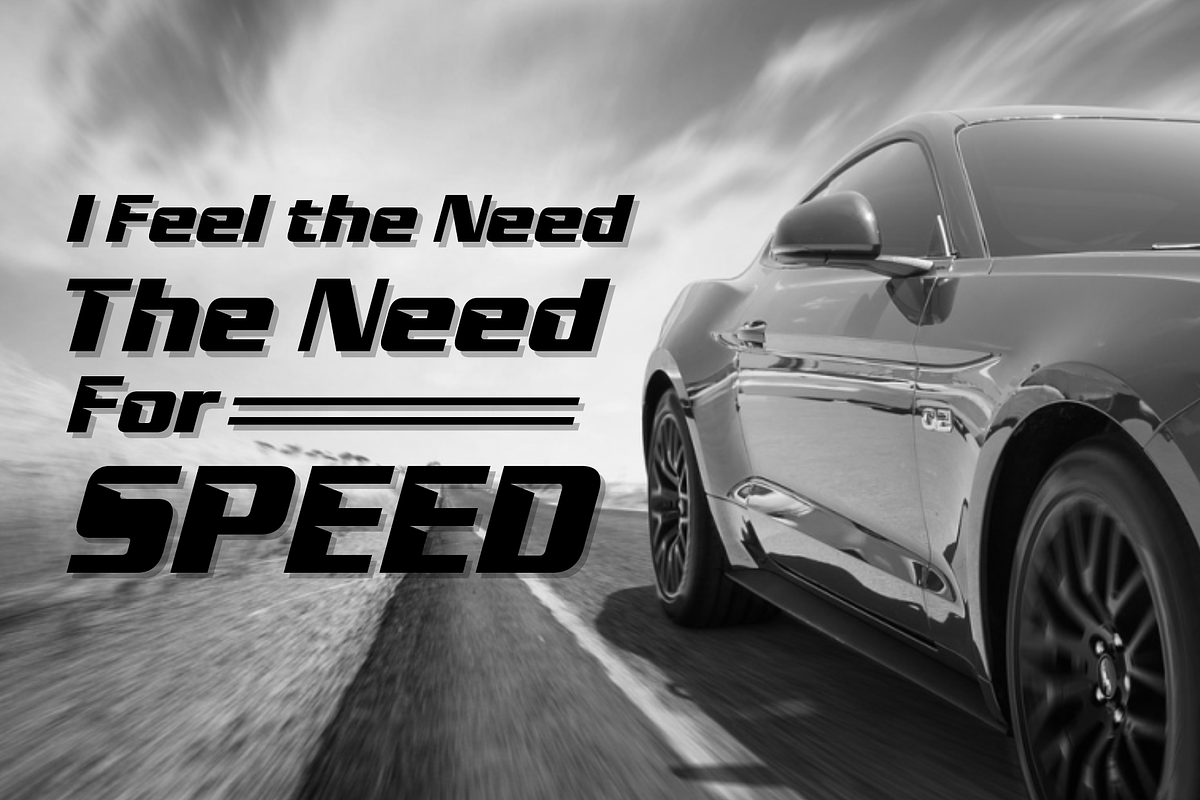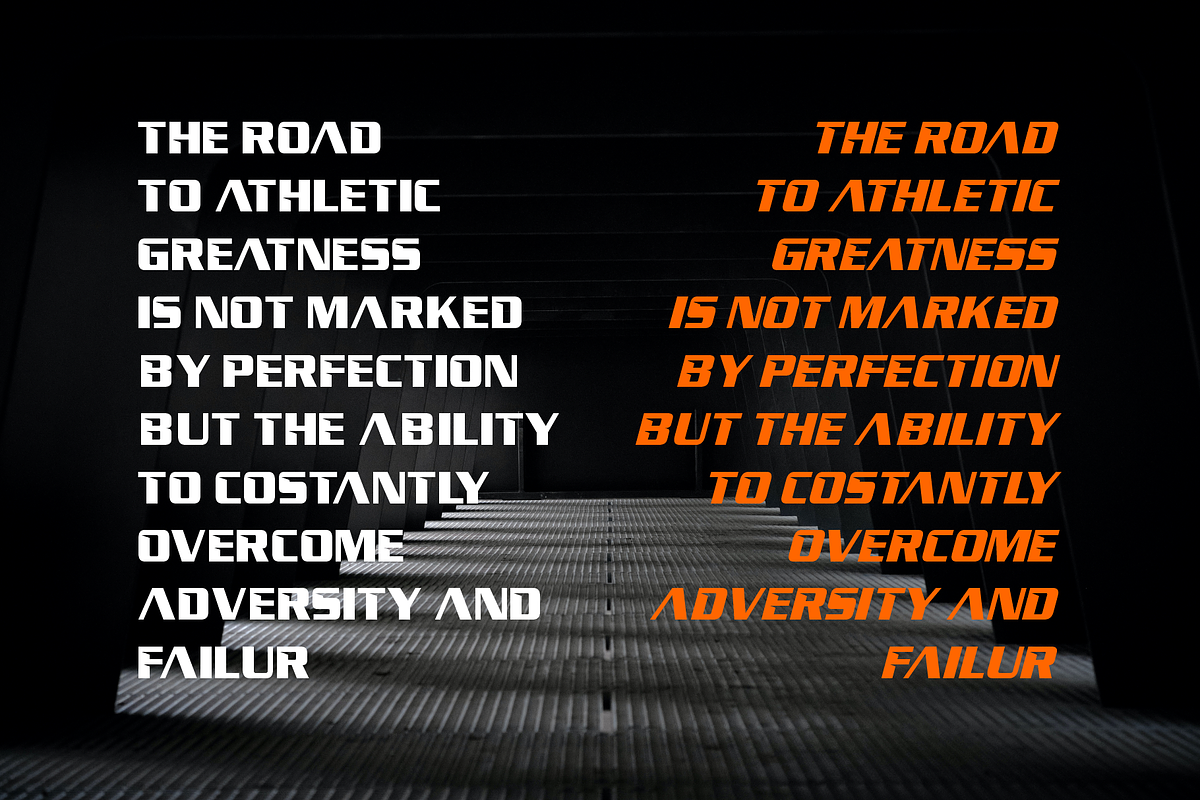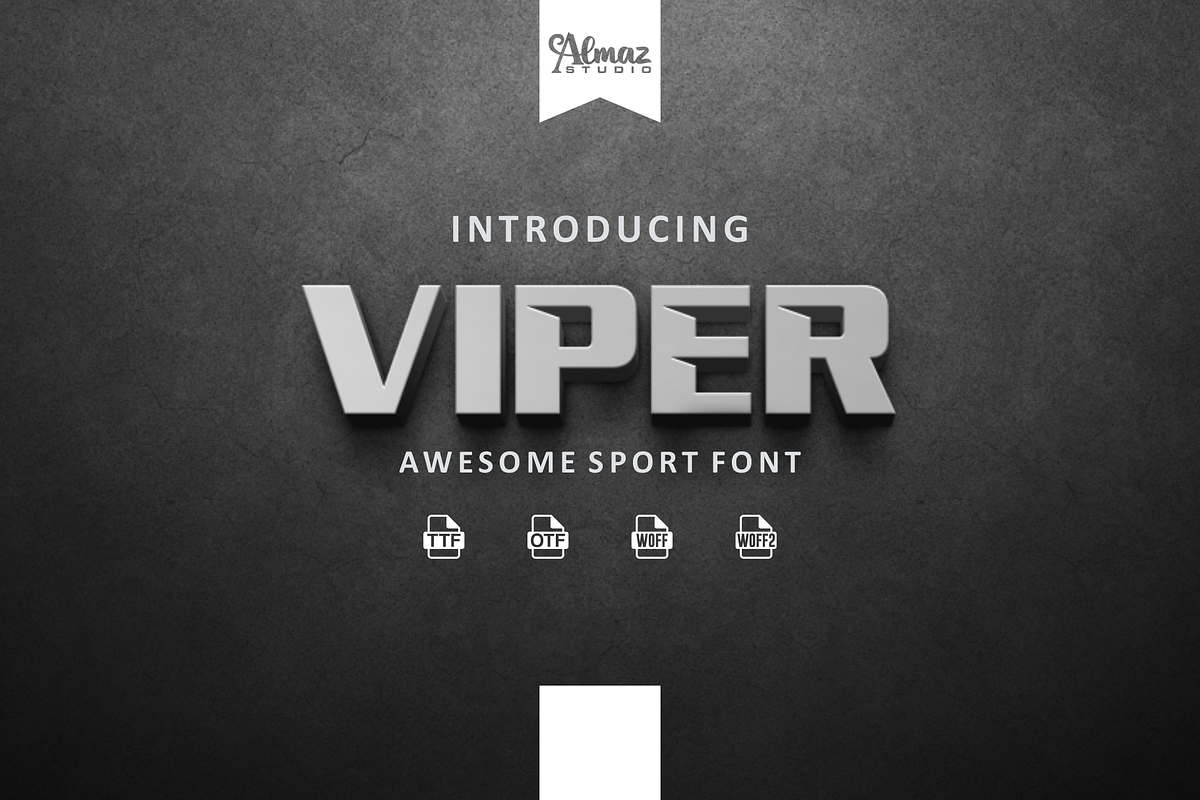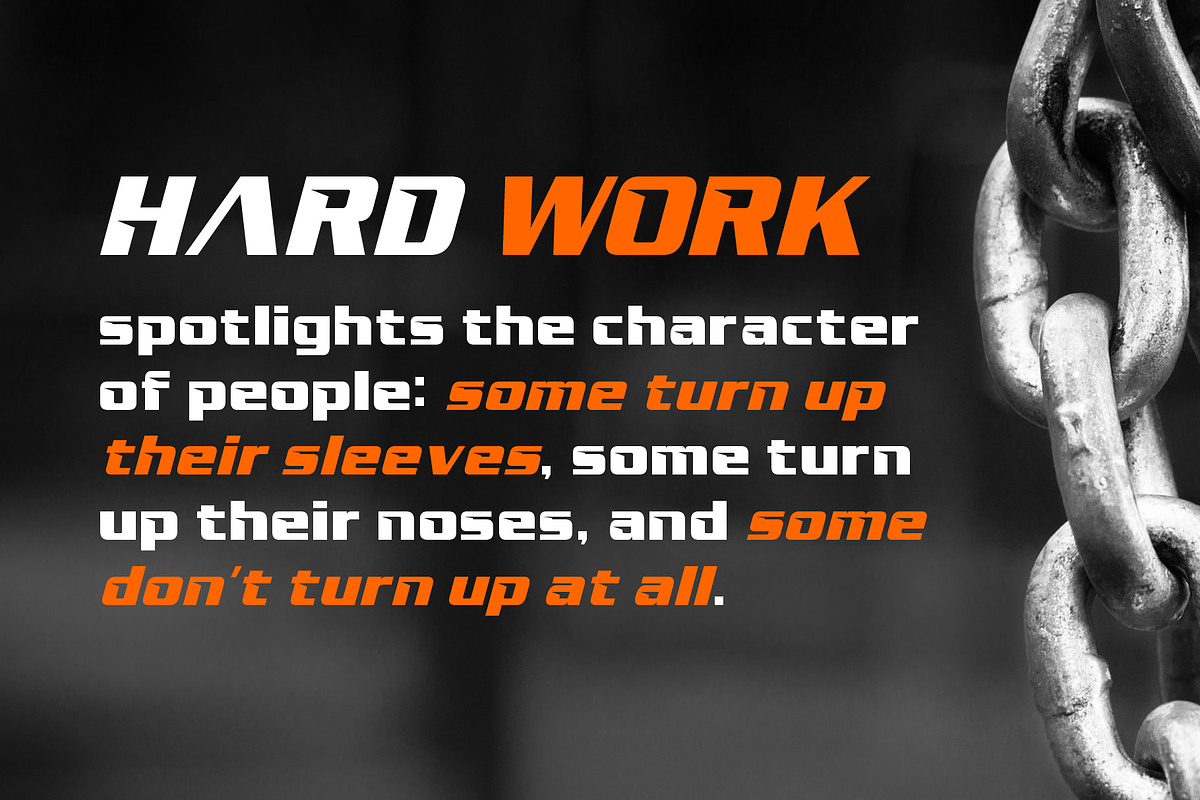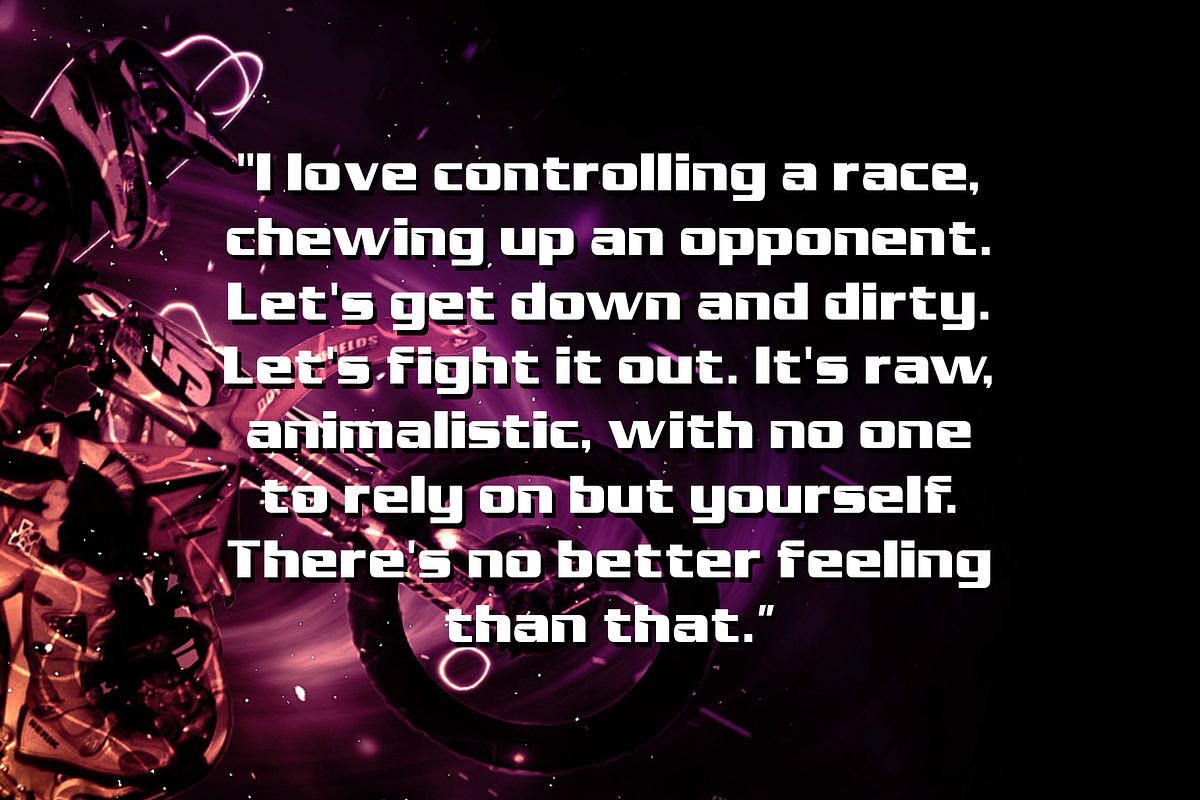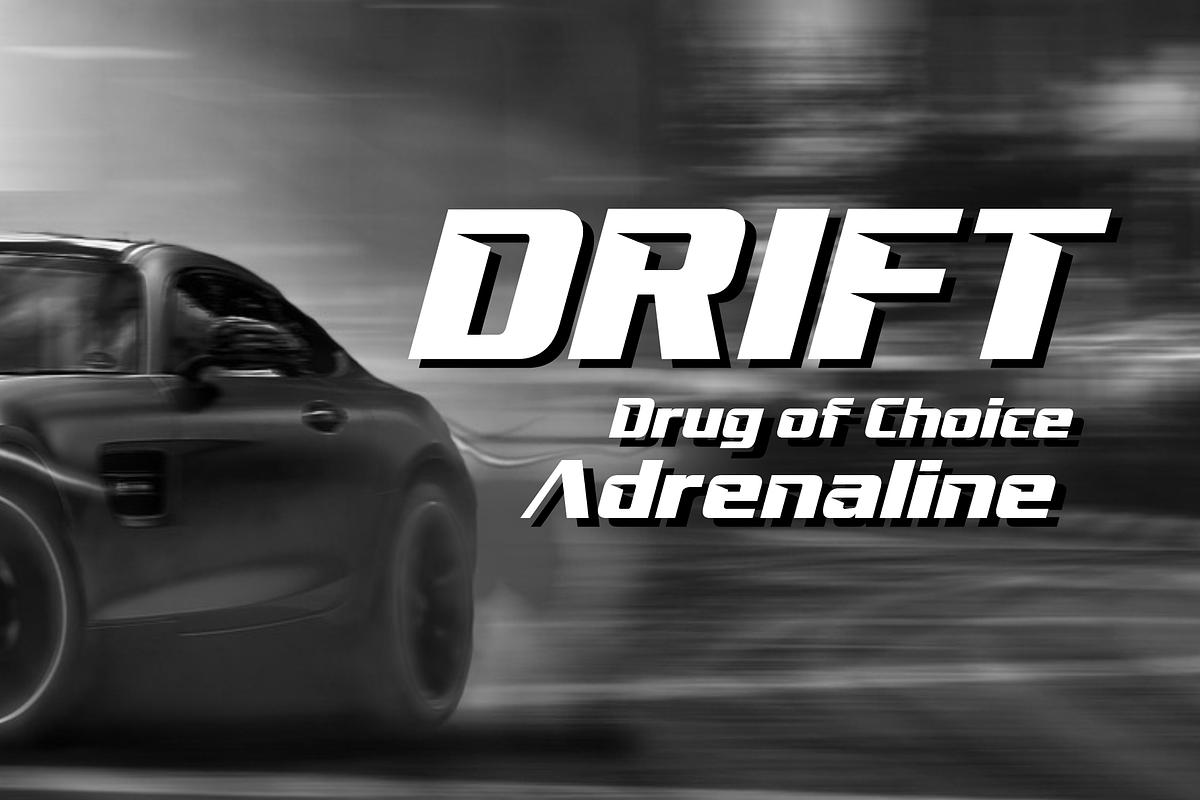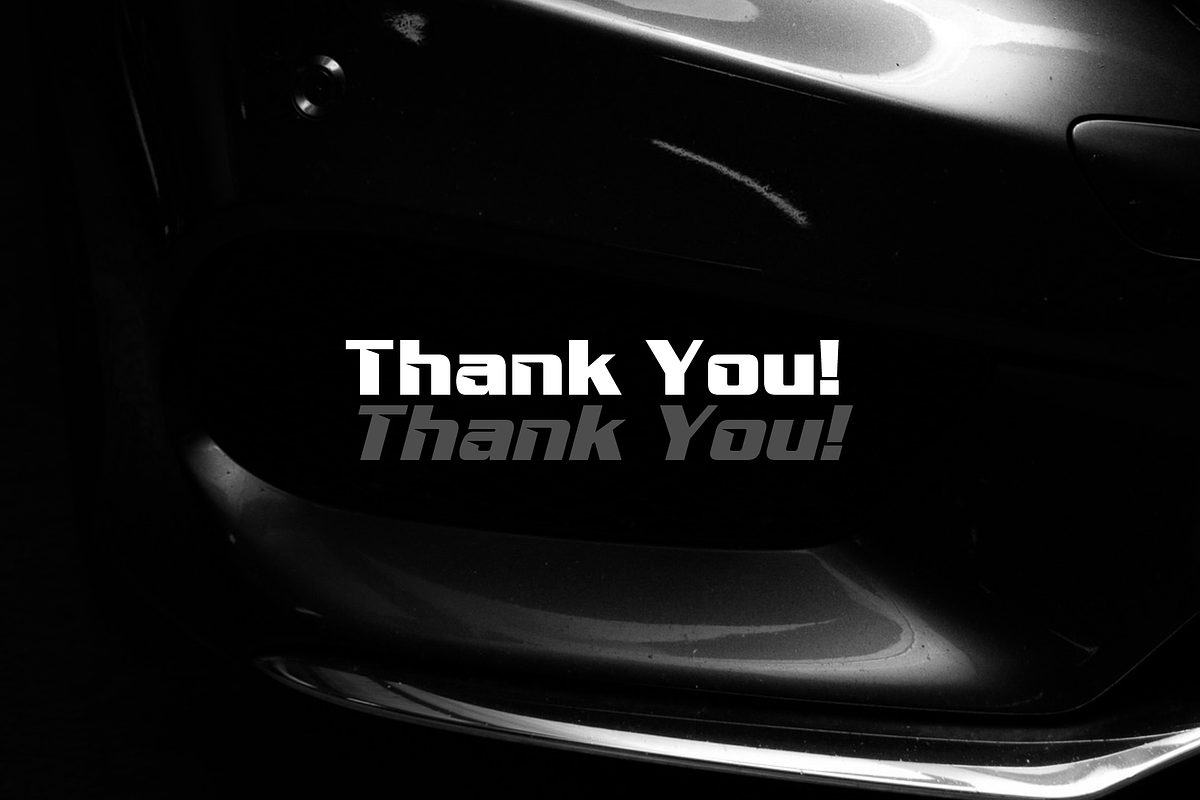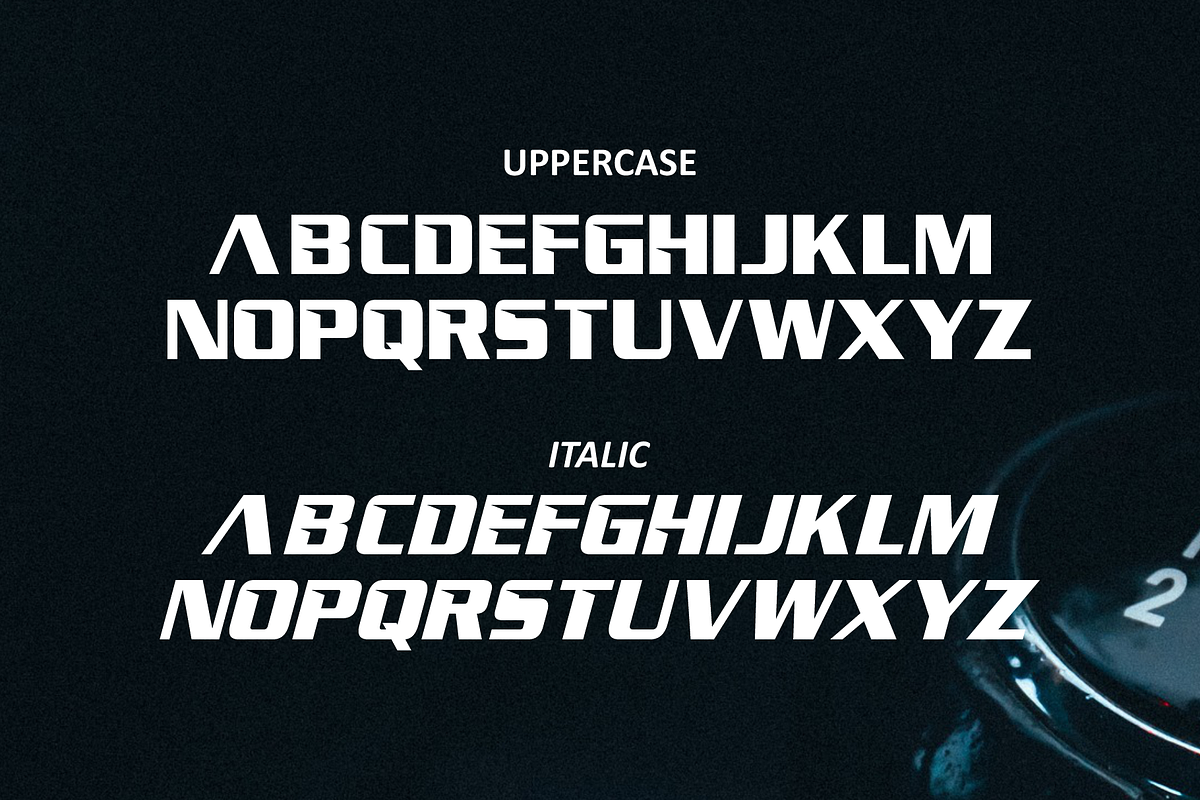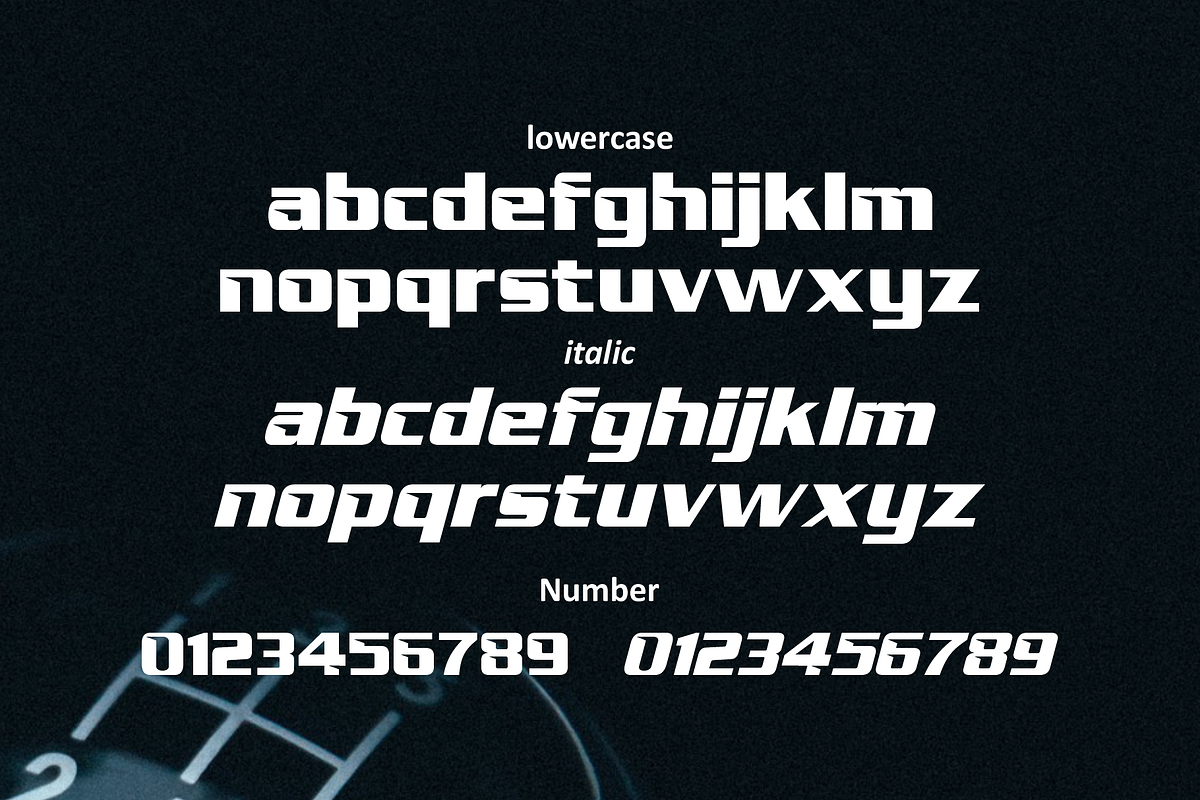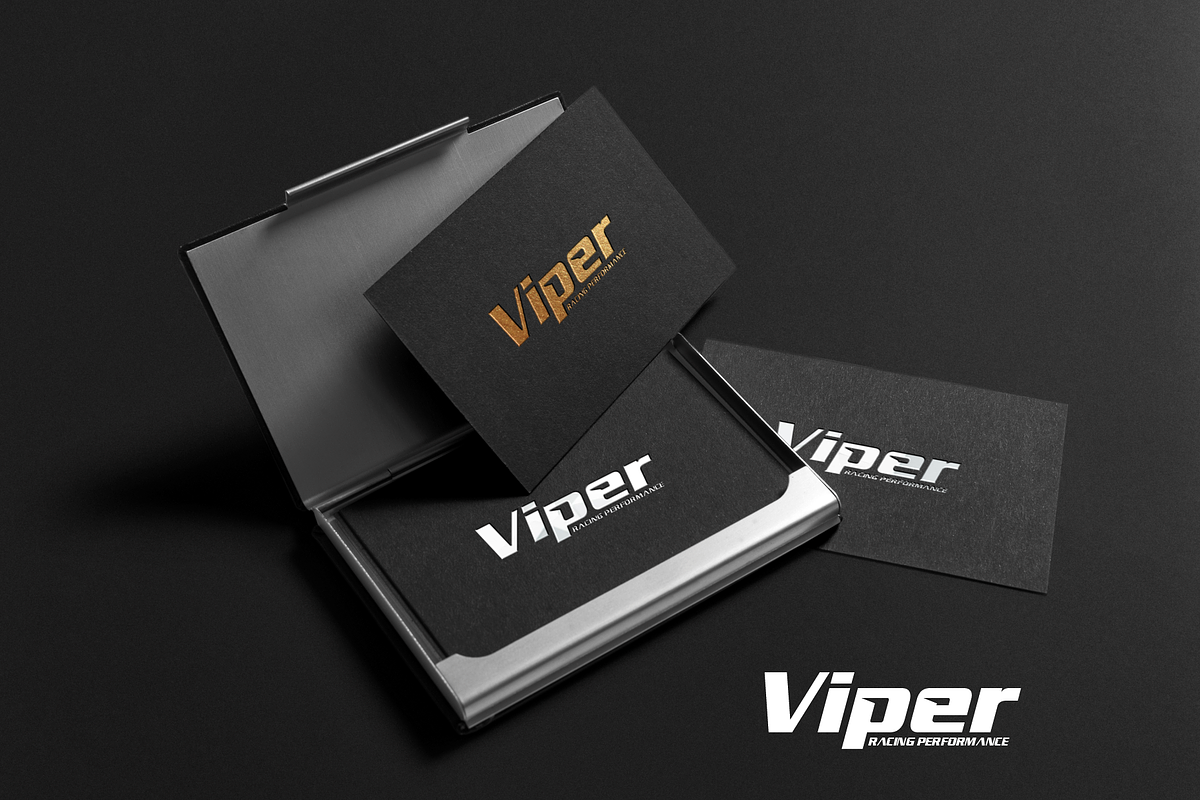
Viper
Viper is a high-impact, condensed, display font consisting of a normal and alternate. Viper is a regular and italics font type. Its range in thickness gives a sharp, technical feel in the lighter weights, while the bold, blacker weights are meant to be tightly spaced and stacked for a visual punch. The strong and sturdy design makes it ideal for eye-catching headlines, branding, packaging, magazines, sports, logos, and more. The included alternate Viper takes the dynamic nature of this design further by adding sliced out elements to flat, horizontal strokes, giving it more movement, aggression, and a sense of speed. Also part of each weight font file are matching pre-designed catchwords that add texture to your typography. Stylistic alternates and arrow glyphs increase the options available.